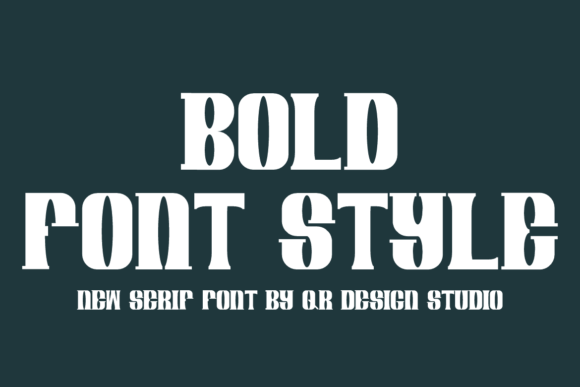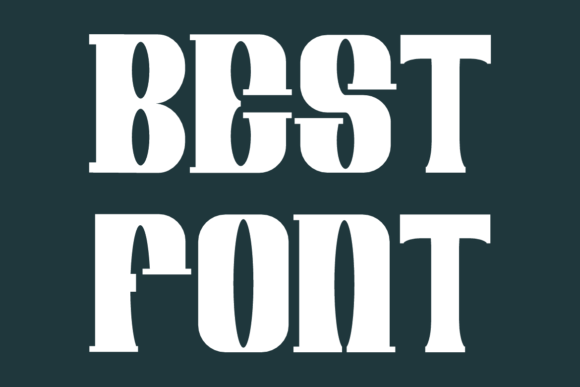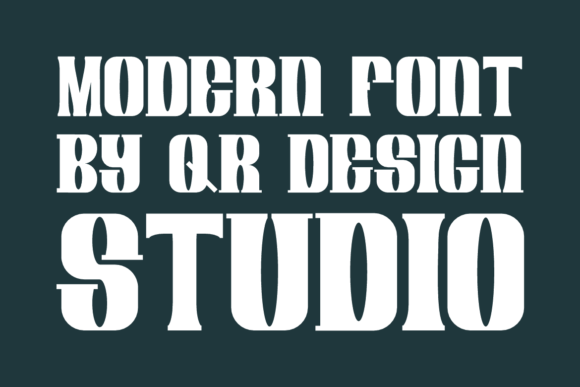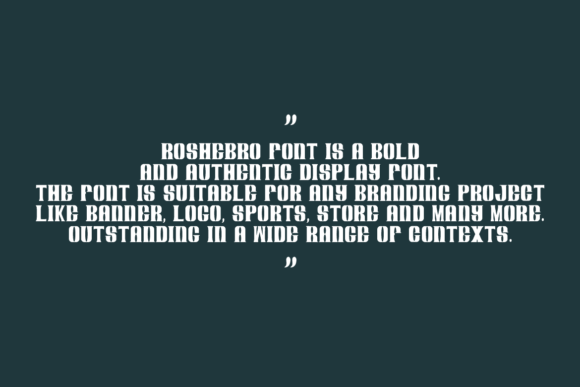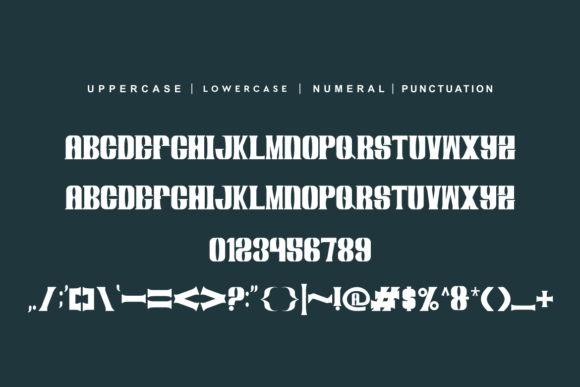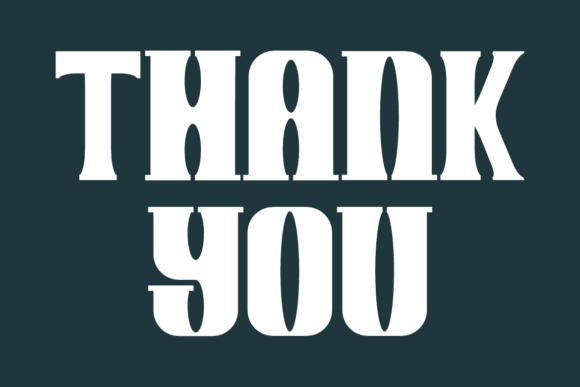
Introduction to Roshebro Font
Roshebro Font is a minimalist, elegant, and clean serif typeface designed to be used as a display serif.
It adapts wonderfully in contexts such as designing labels for perfumes, cosmetics, magazine covers, posters, manifests, flyers, social posts, and fashion Use it in your creations so you can notice how it makes your projects become alive.
Key Features of Roshebro Font
Why Choose Roshebro Font?